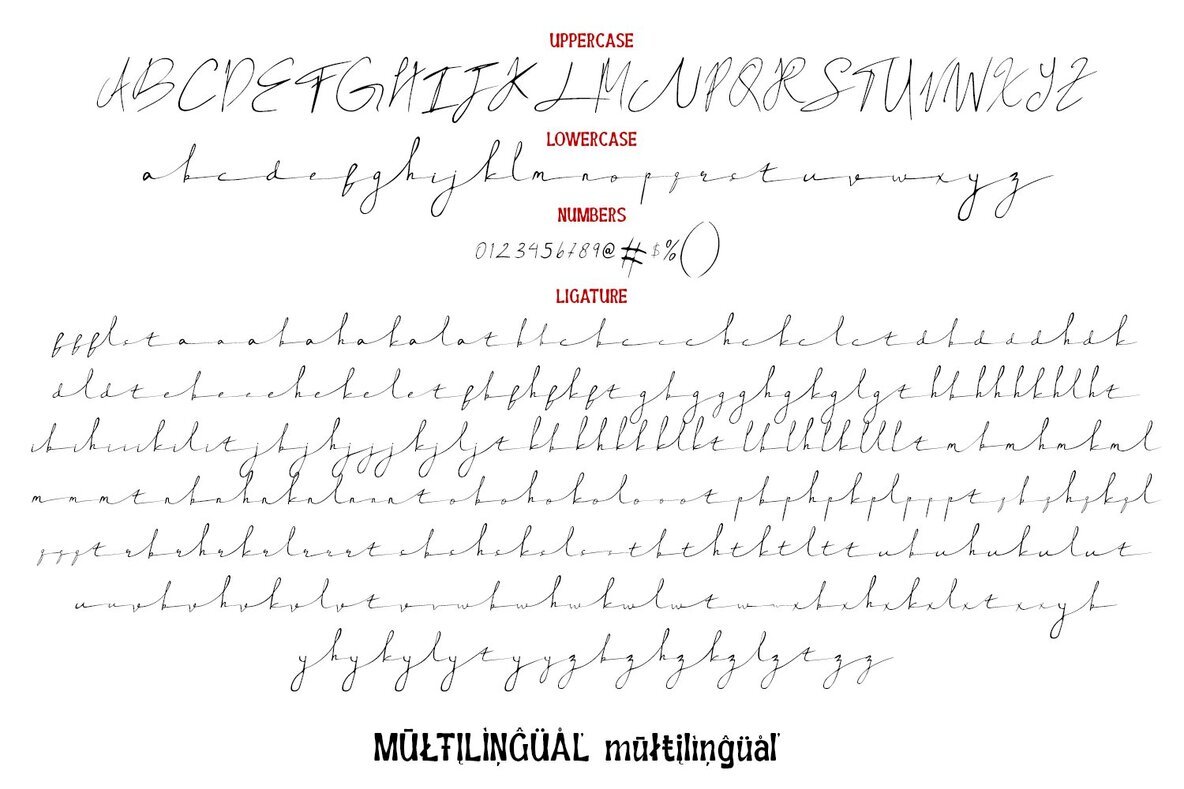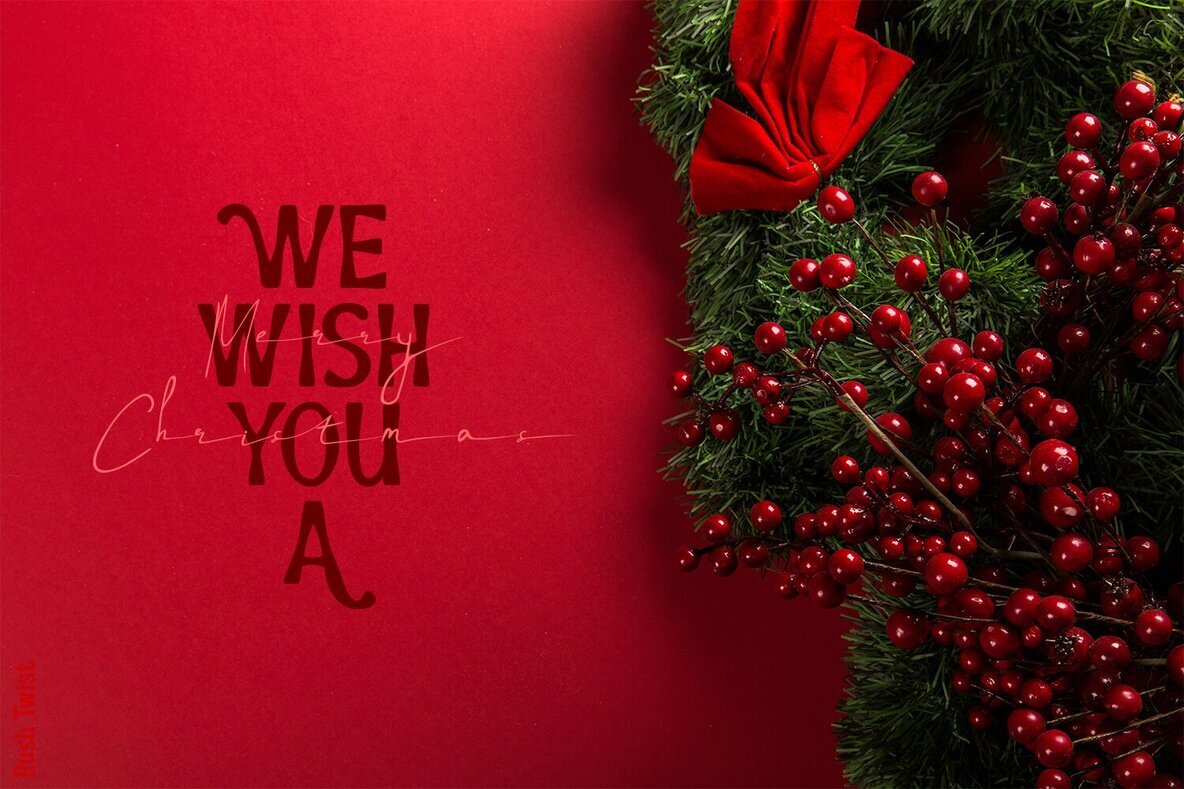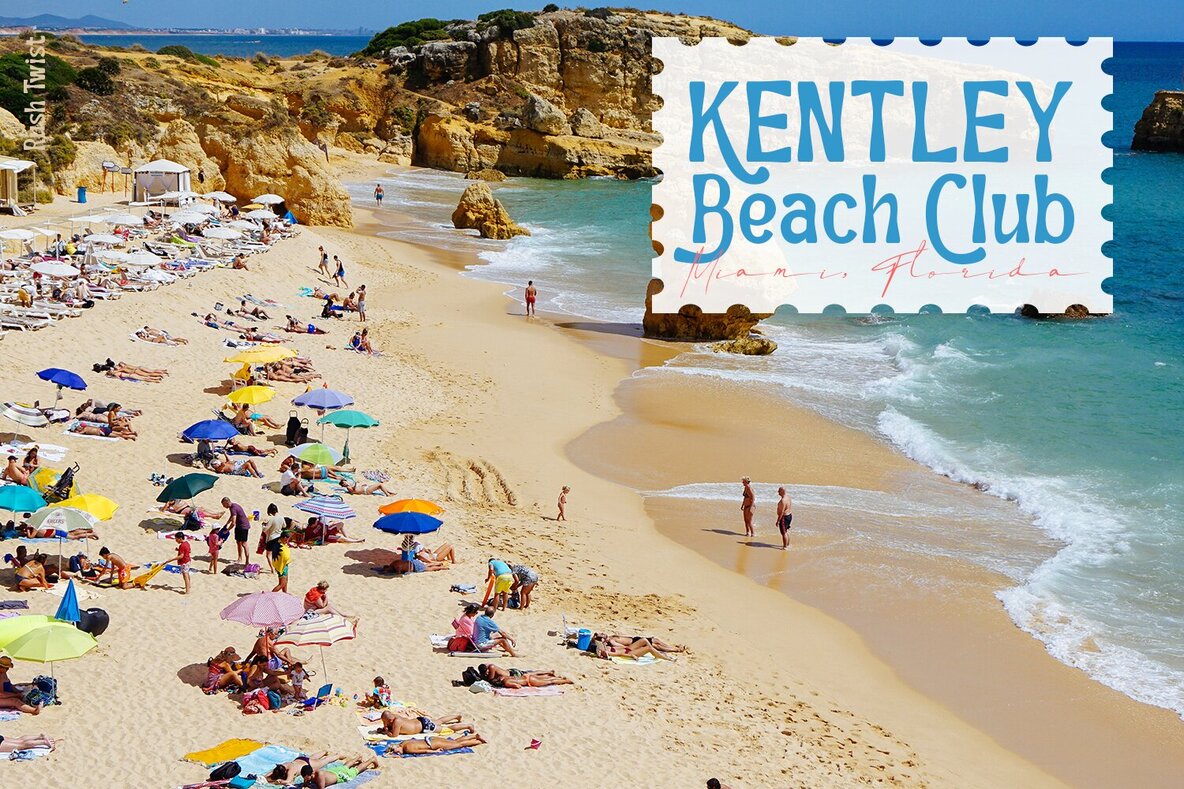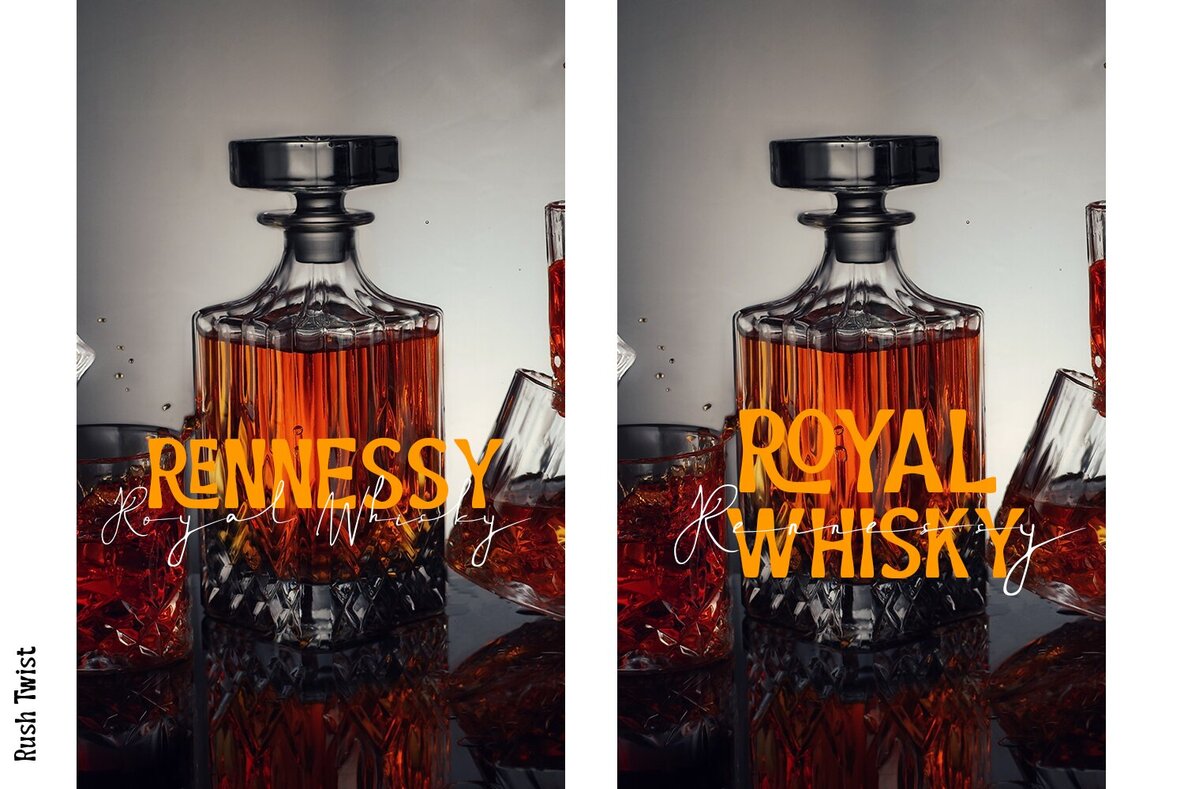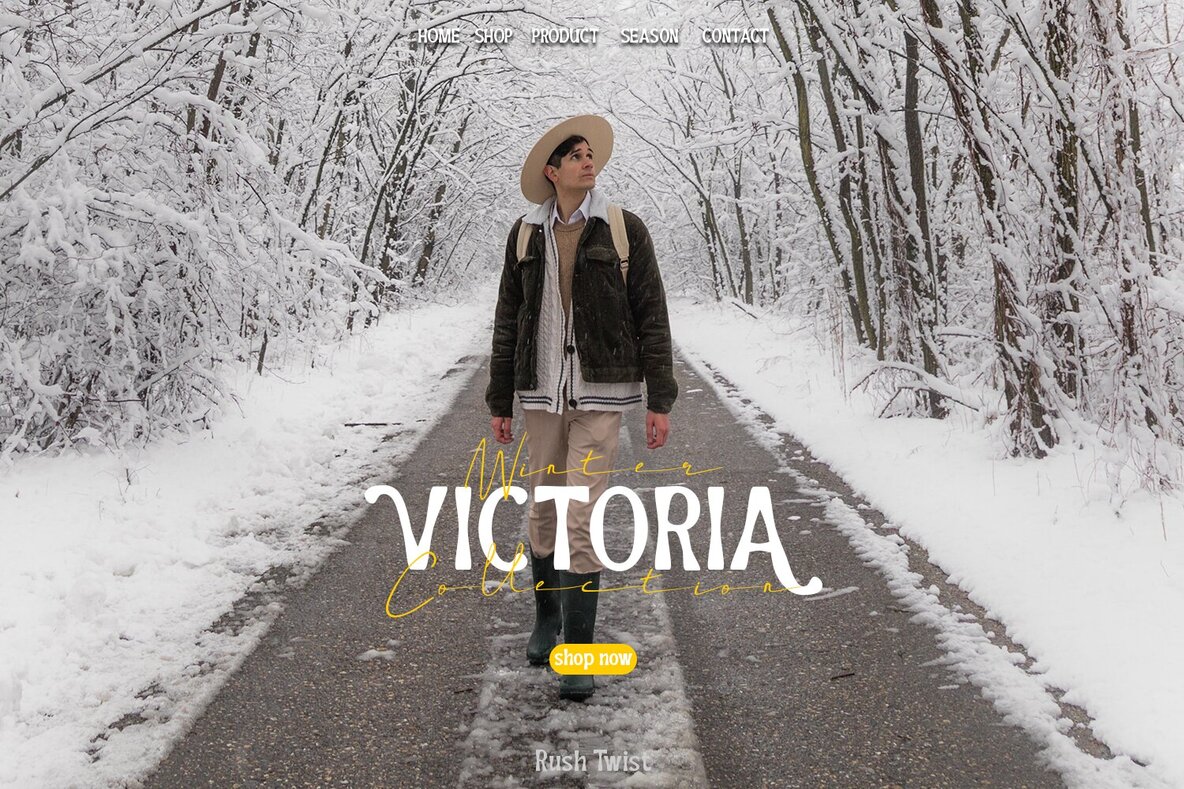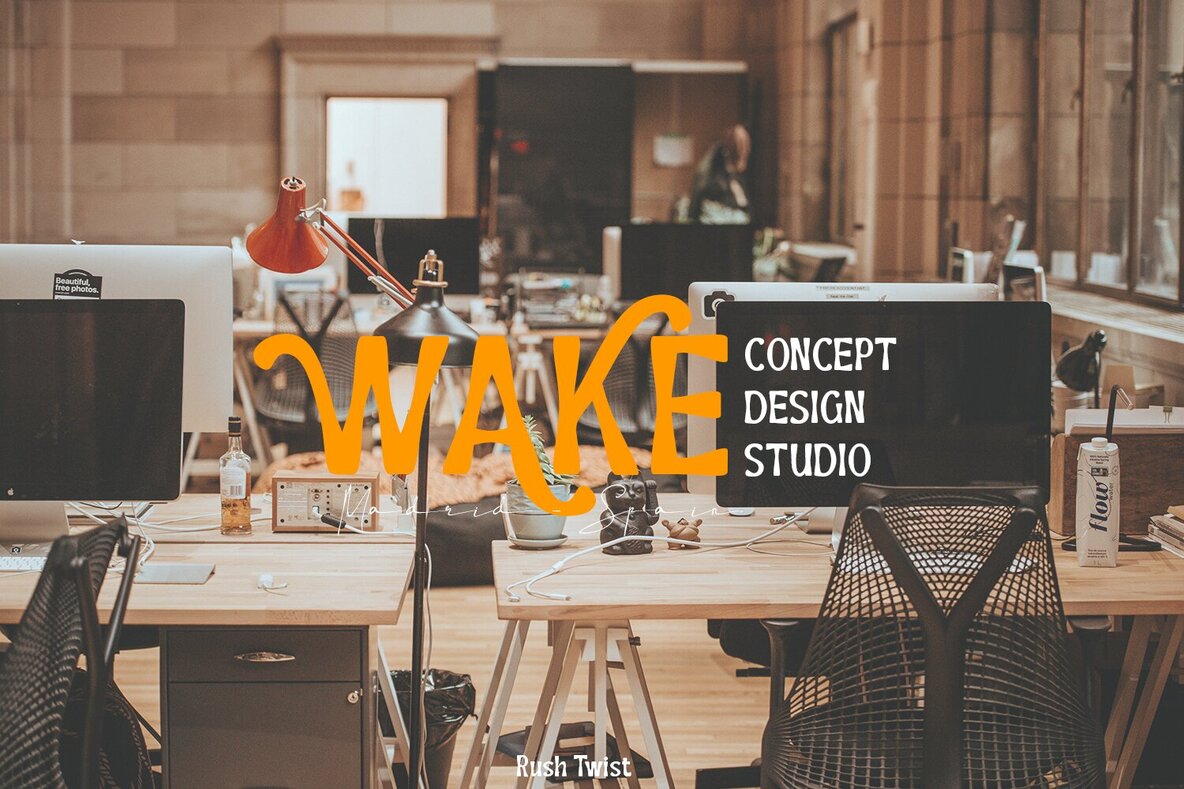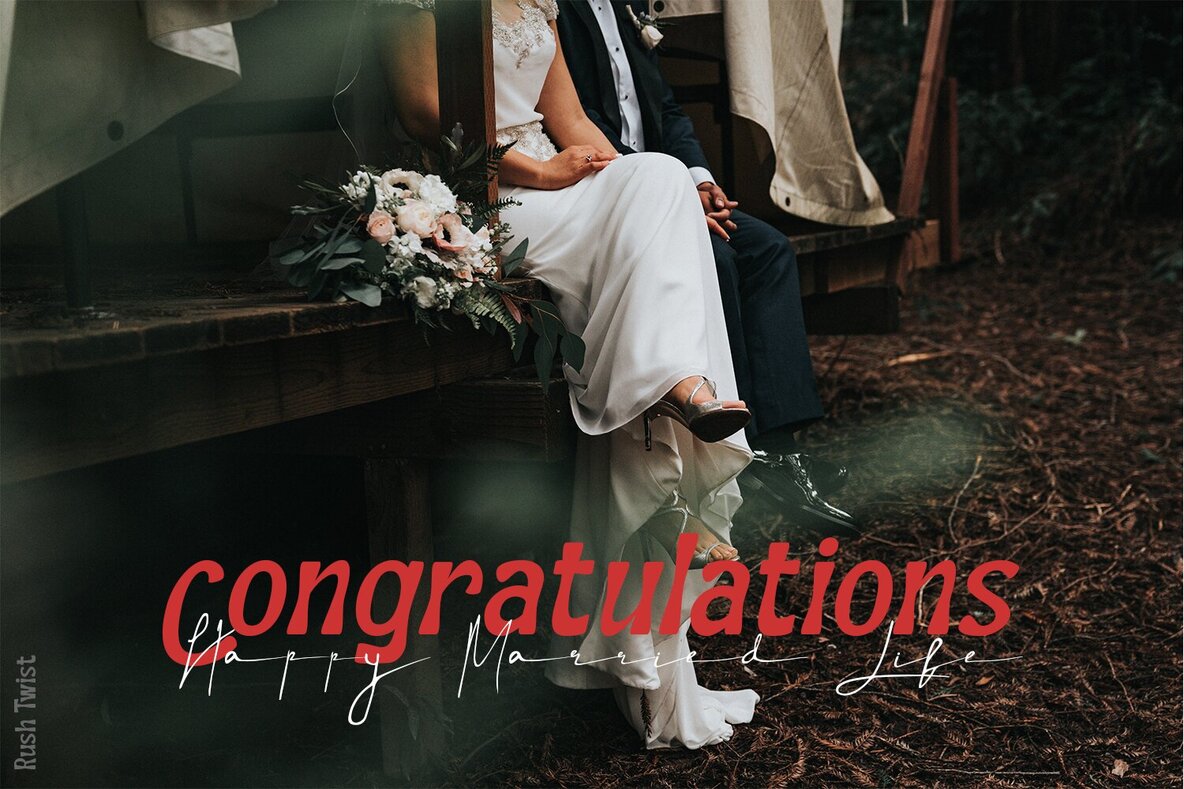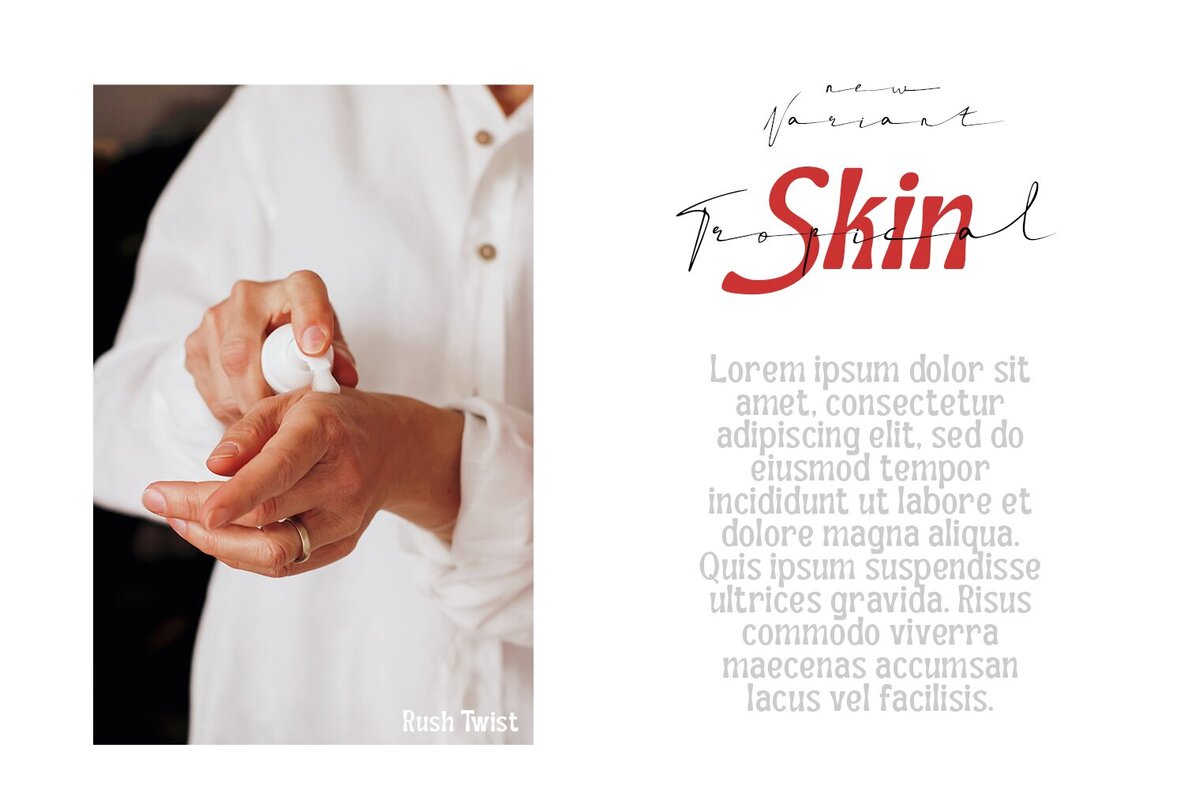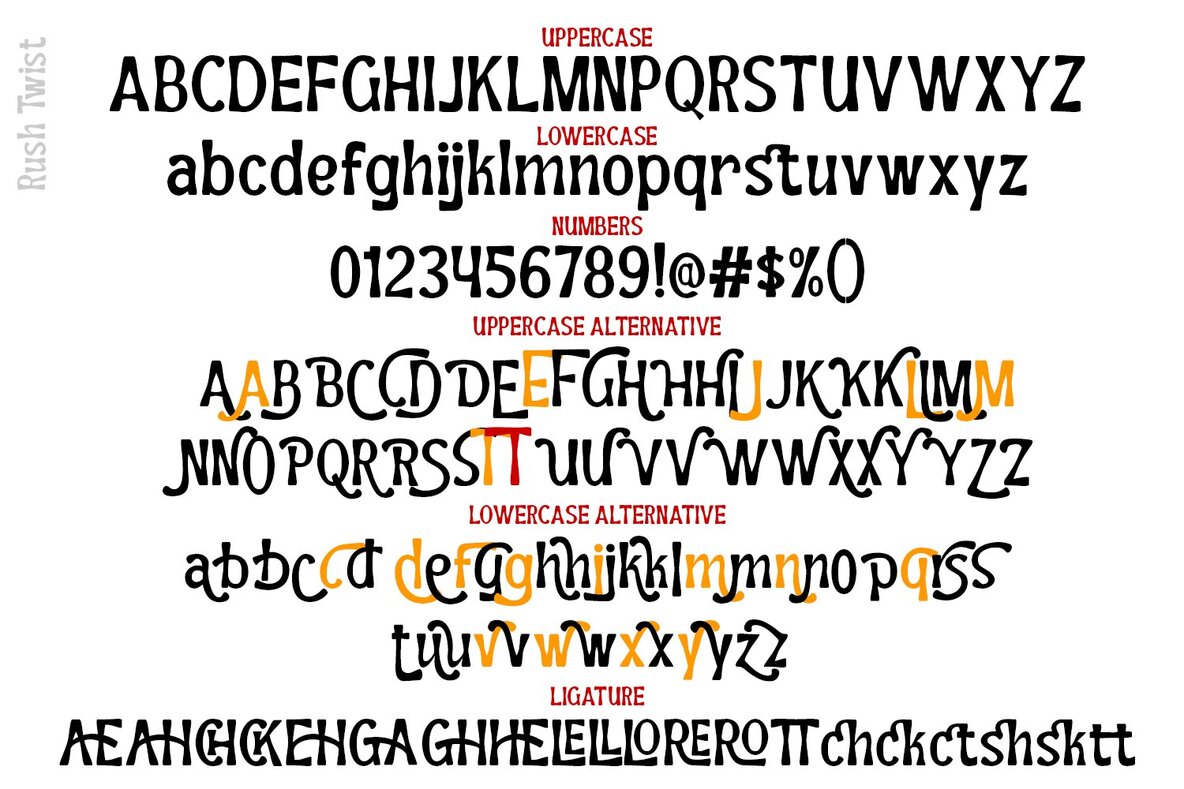
Rush Twist Font
Rush Twist offers a unique combination of a signature and sans display font, crafted to bring a natural, handmade feel to your designs. Including more than 145 ligatures, this font duo enhances the authenticity of your projects, offering a plethora of alternatives and creative ligature options.Rush Twist: Signature and Sans Display Font Duo